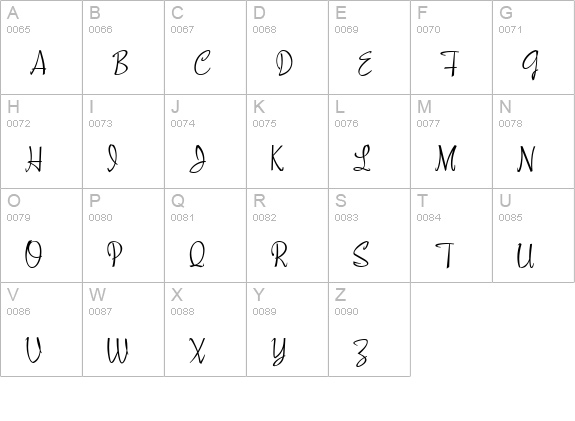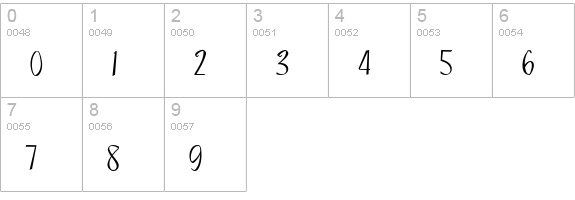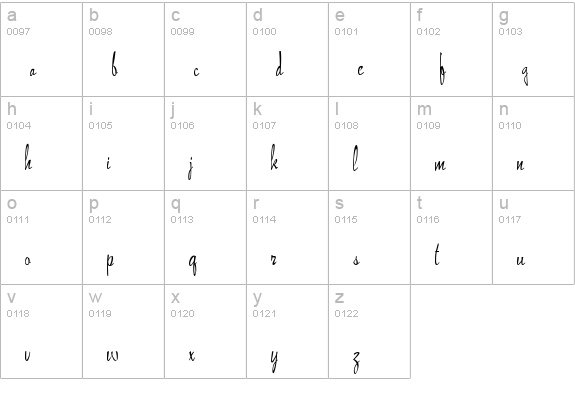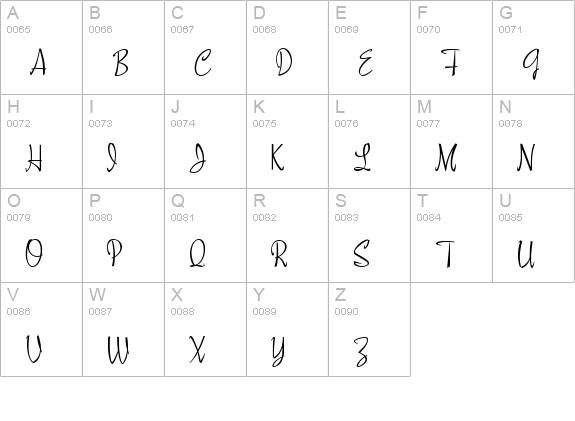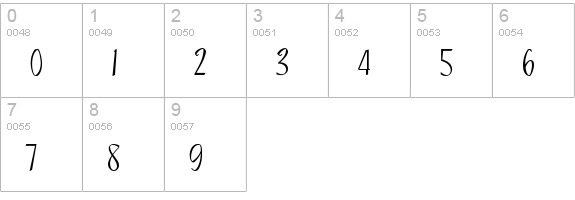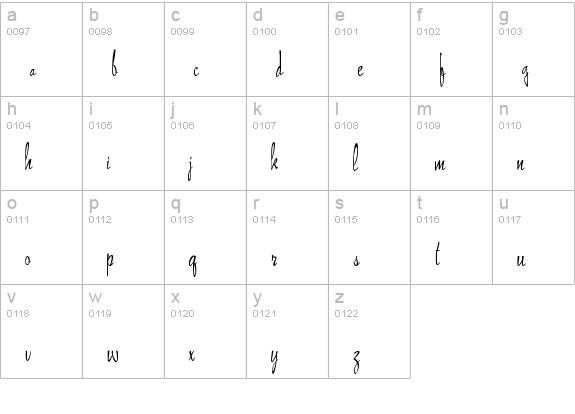
PoodlePusherNF Medium is a balanced, medium-weight variant in the PoodlePusherNF typeface family \xE2\x80\x94 well suited to sub-headlines, navigation, and balanced editorial work.
PoodlePusherNF Medium font is a versatile and elegant typeface that exudes a sense of sophistication and charm. Its clean lines and rounded edges make it perfect for a wide range of design projects, from branding to editorial layouts. This modern yet classic font strikes the perfect balance between professionalism and creativity, making it a go-to choice for designers looking to make a statement. And the best part? PoodlePusherNF Medium font is available for free download at FontsMarket.com. Whether you're working on a personal project or a client's design, this font is a valuable addition to your font library. Don't miss out on the opportunity to elevate your designs with this stylish and timeless typeface. Download PoodlePusherNF Medium font today and see the difference it can make in your next project.